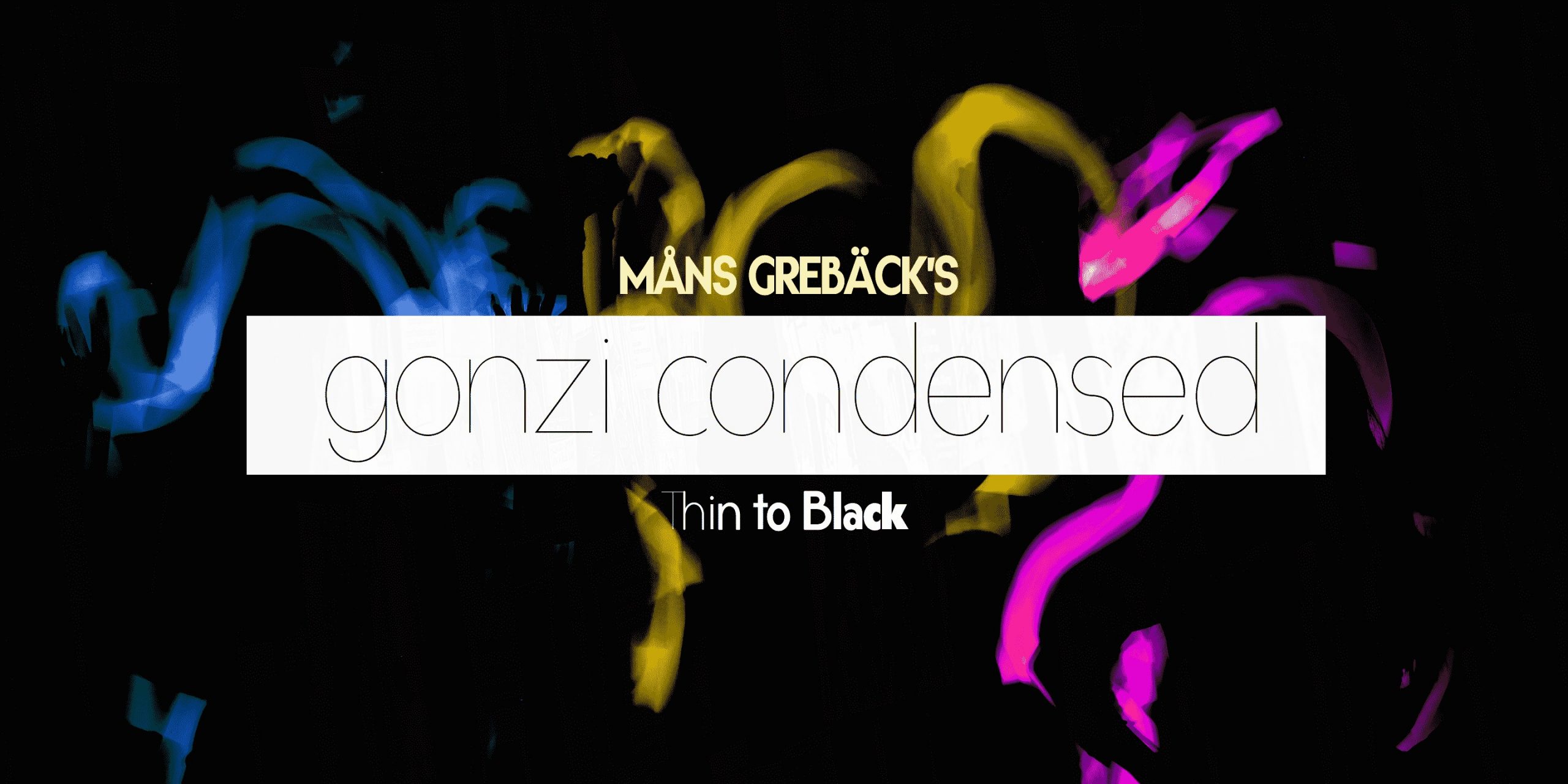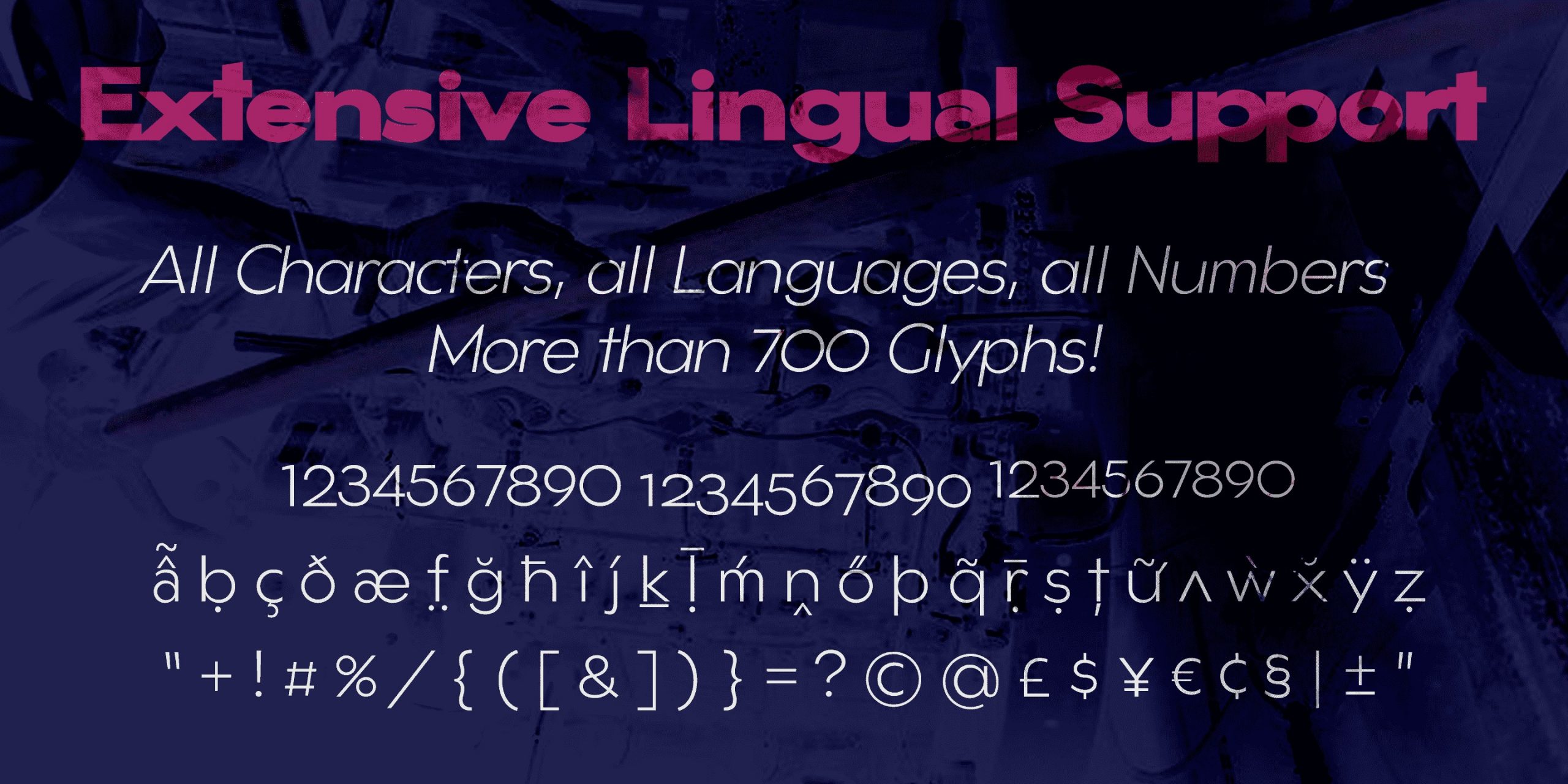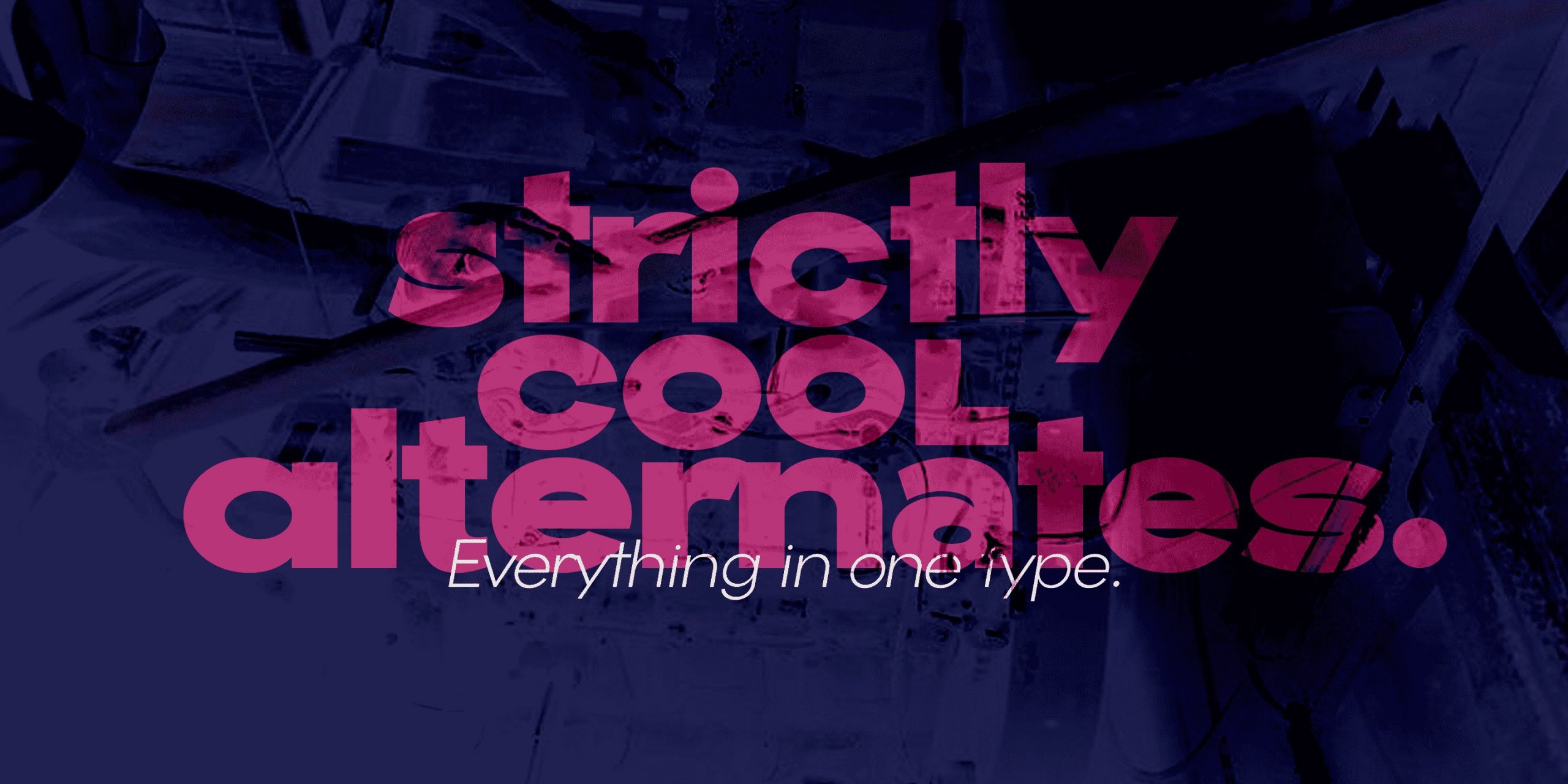
Gonzi Expanded Font Family
Gonzi Expanded Sans Serif Font
This is a modern sans serif font with 5 weights, each one as narrow, medium and wide: Thin, Light, Regular, Bold, Black Condensed, Medium, Extended Each one of font styles is also provided as Italic, totalling 30 high-quality styles. Created for modern and minimalist purpose. Its circular lowercase letters and large, expressive capitals combine to create a modern, clean typesetting with a distinct personality; all the while keeping accessible and legible. Also includes a variable font! Only one font file, but the file contains multiple styles. Use the sliders in Illustrator, Photoshop or InDesign to manually set any weight and width. This gives you not only the predefined styles, but instead more than a thousand ways to customize the type to the exact look your project requires.